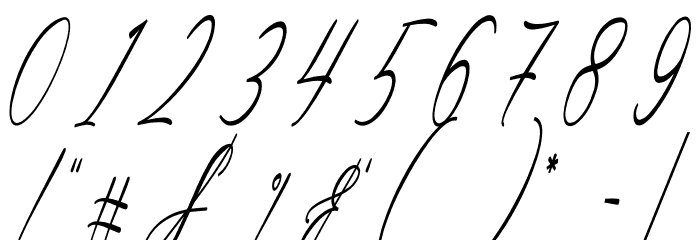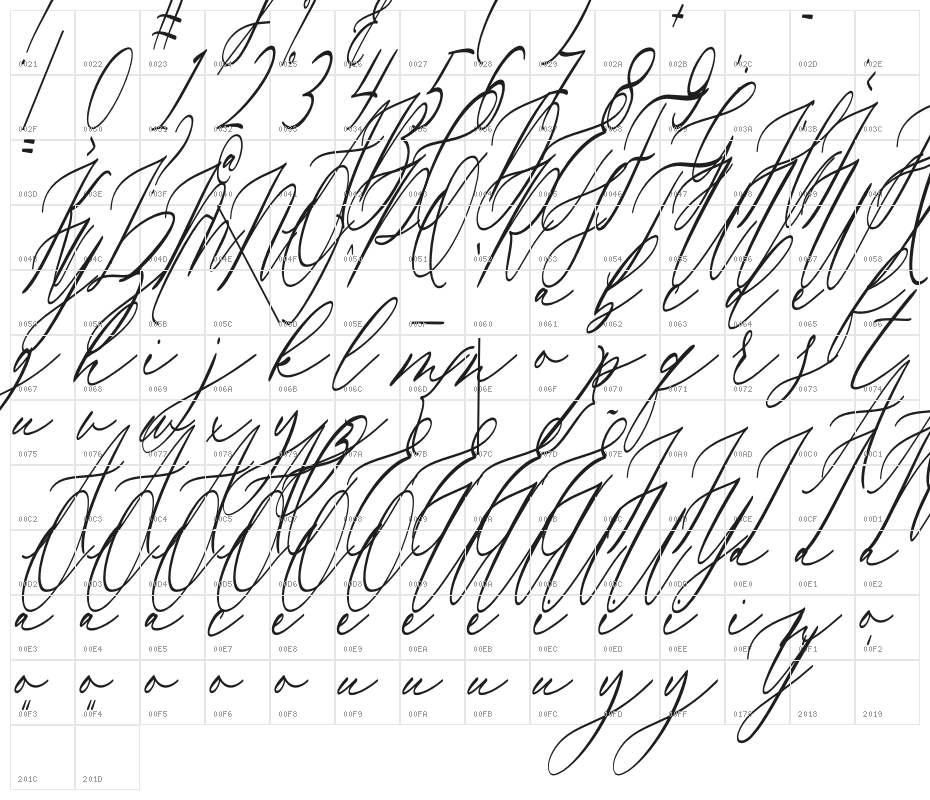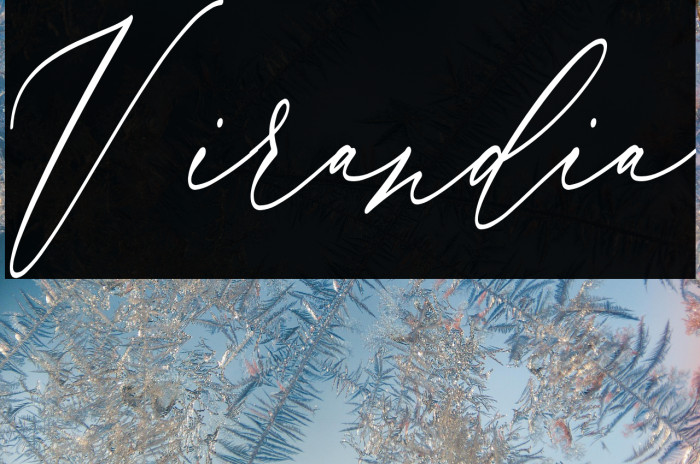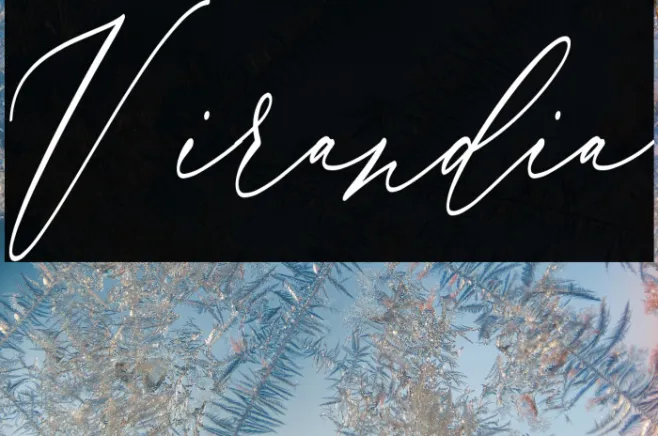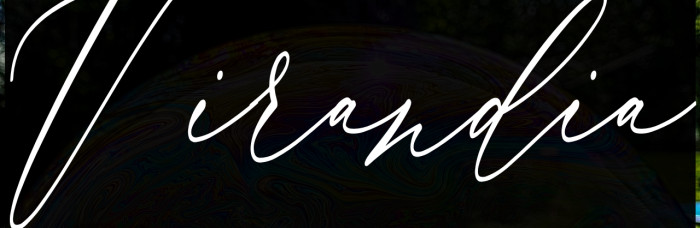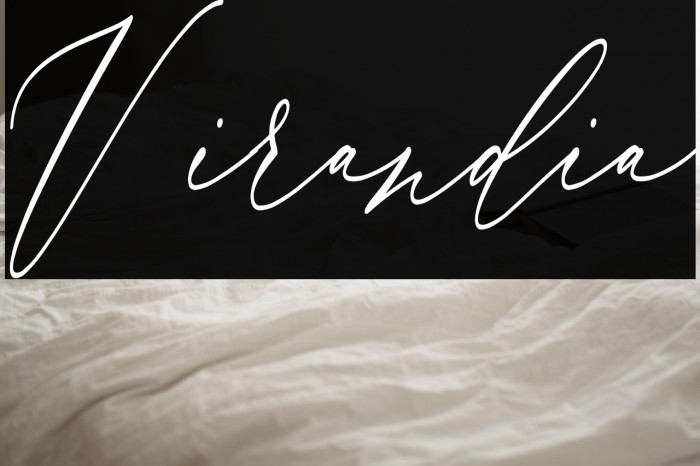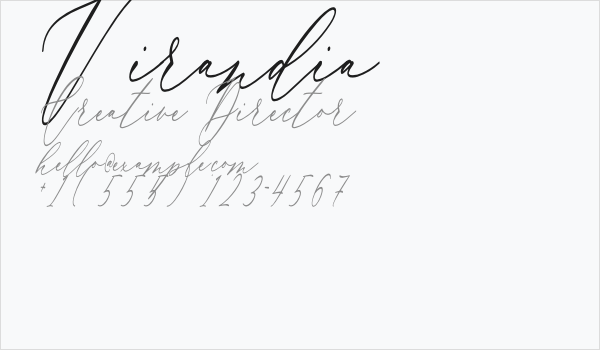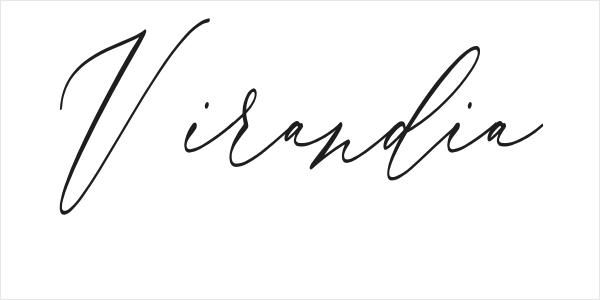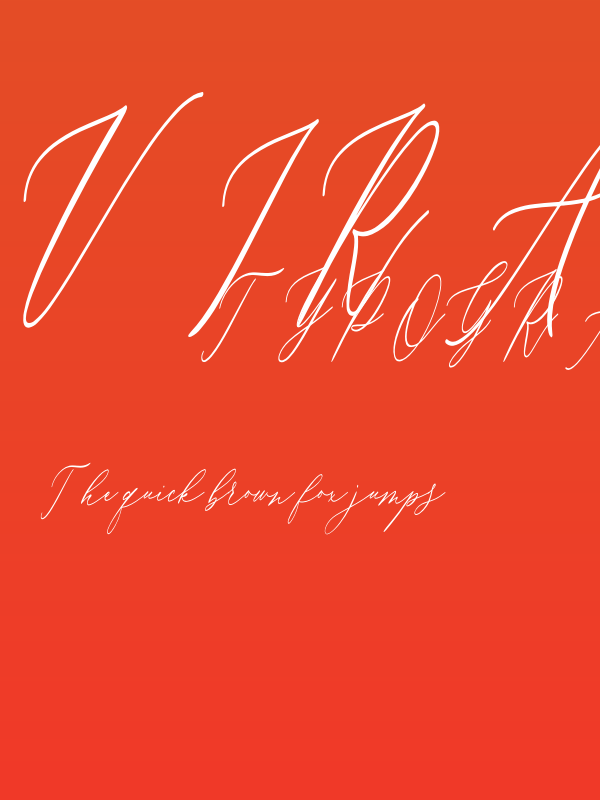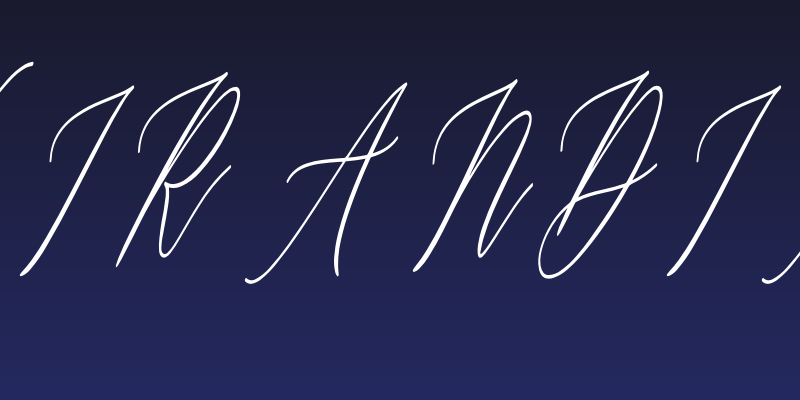
Virandia Font
Virandia Description
This elegant script font features a fluid, cursive style that mimics the look of traditional handwriting. The characters are connected, creating a seamless flow that is both sophisticated and graceful. The uppercase letters are slightly larger and more ornate, while the lowercase letters maintain a consistent, flowing form. The numbers and special characters are designed to match the overall aesthetic, with delicate curves and loops. This font is perfect for projects that require a personal touch or a sense of elegance, such as invitations, greeting cards, or branding materials.
Overall StyleElegant, Handwritten
Use CaseInvitations, Personal stationery, Artistic projects
Proposed ProjectsIdeal for wedding invitations, elegant branding, personal stationery, and artistic projects.